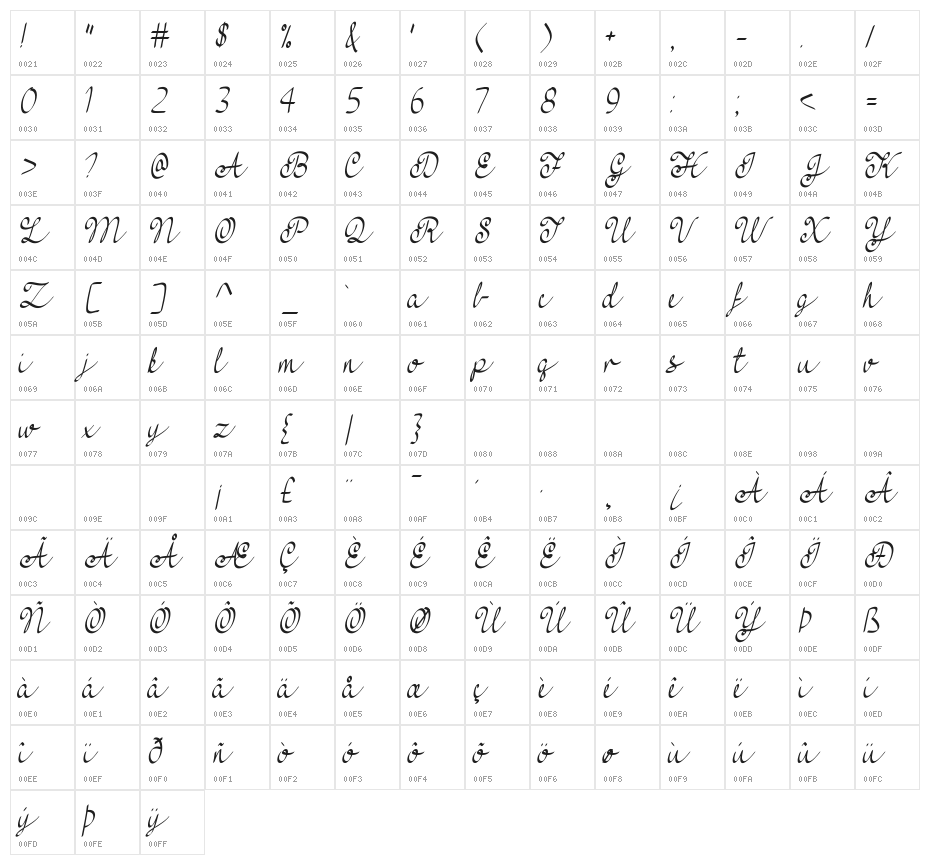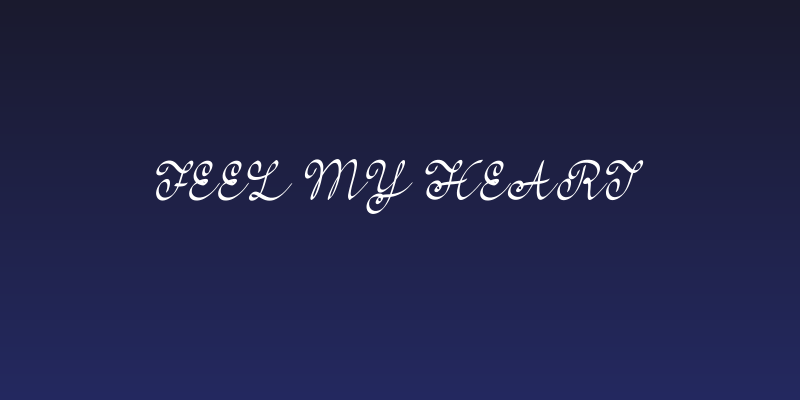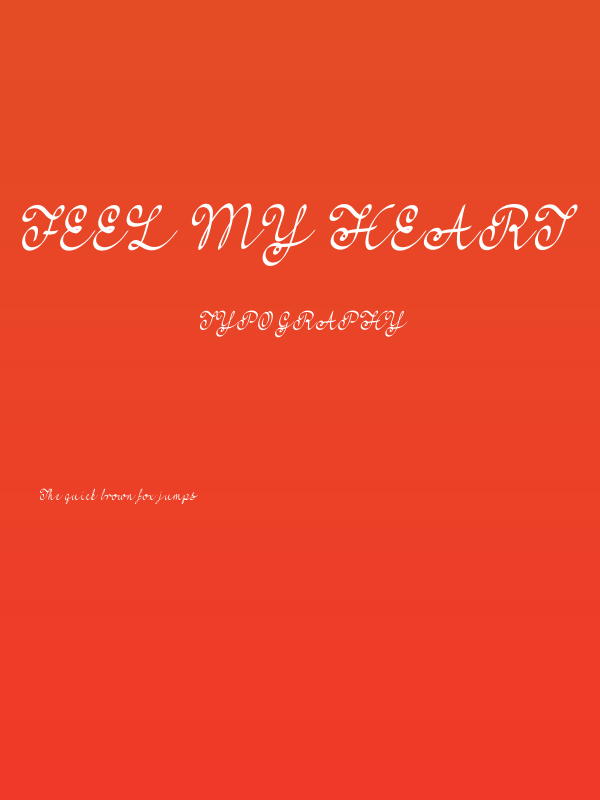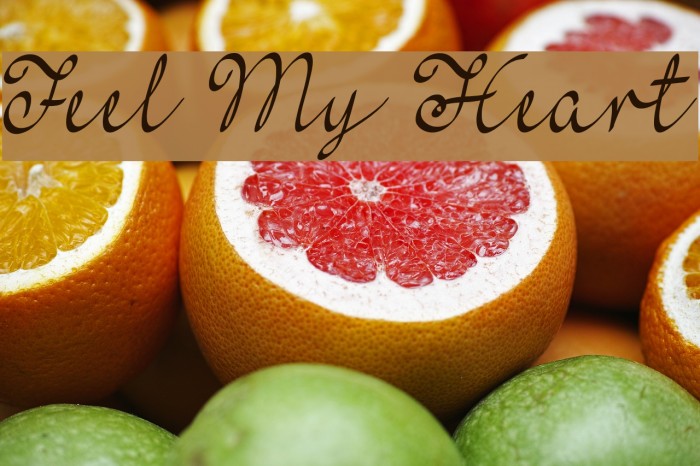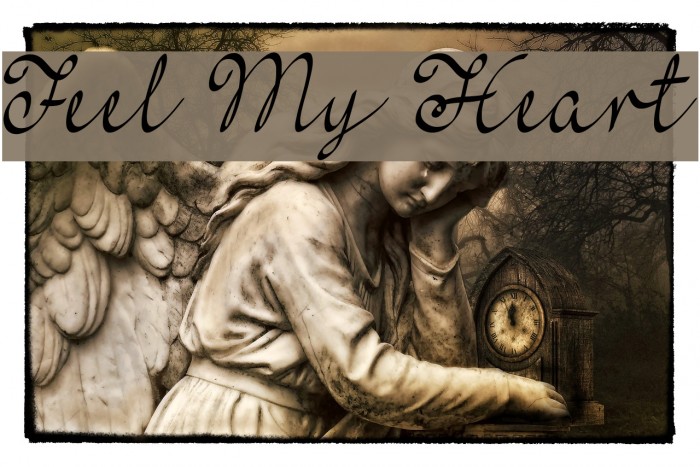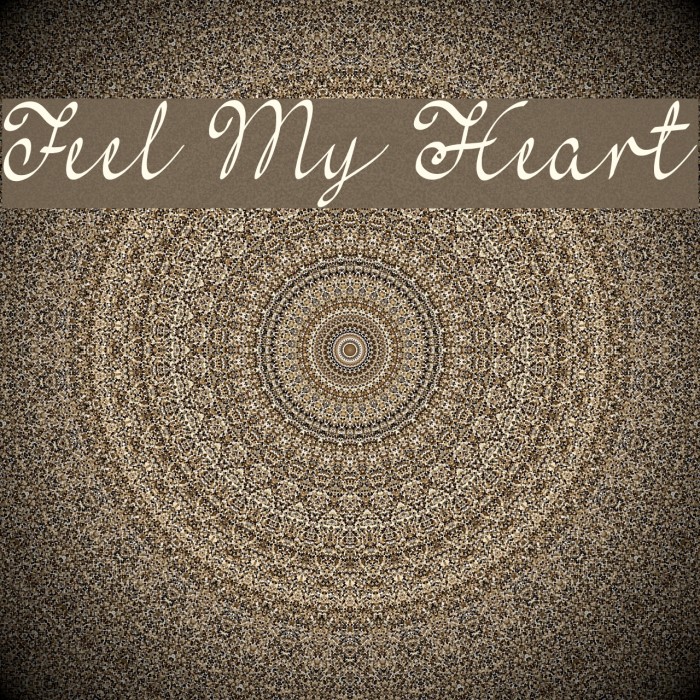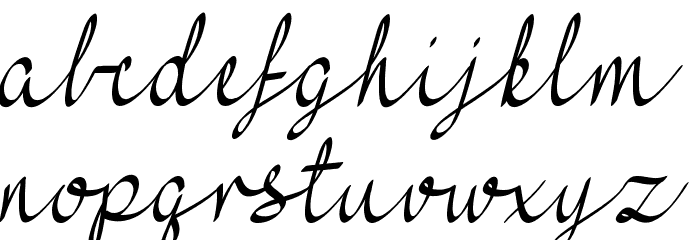
Feel My Heart Font
Feel My Heart Description
This elegant script font features a flowing, cursive style that exudes sophistication and grace. The uppercase letters are intricately designed with smooth, looping strokes that create a sense of movement and fluidity. The lowercase letters maintain a consistent style, with gentle curves and a slightly slanted orientation, enhancing the font's overall elegance. The numerals are clear and legible, complementing the script style without compromising readability. Special characters are thoughtfully integrated, maintaining the font's cohesive aesthetic. This font is perfect for projects that require a touch of class and refinement.